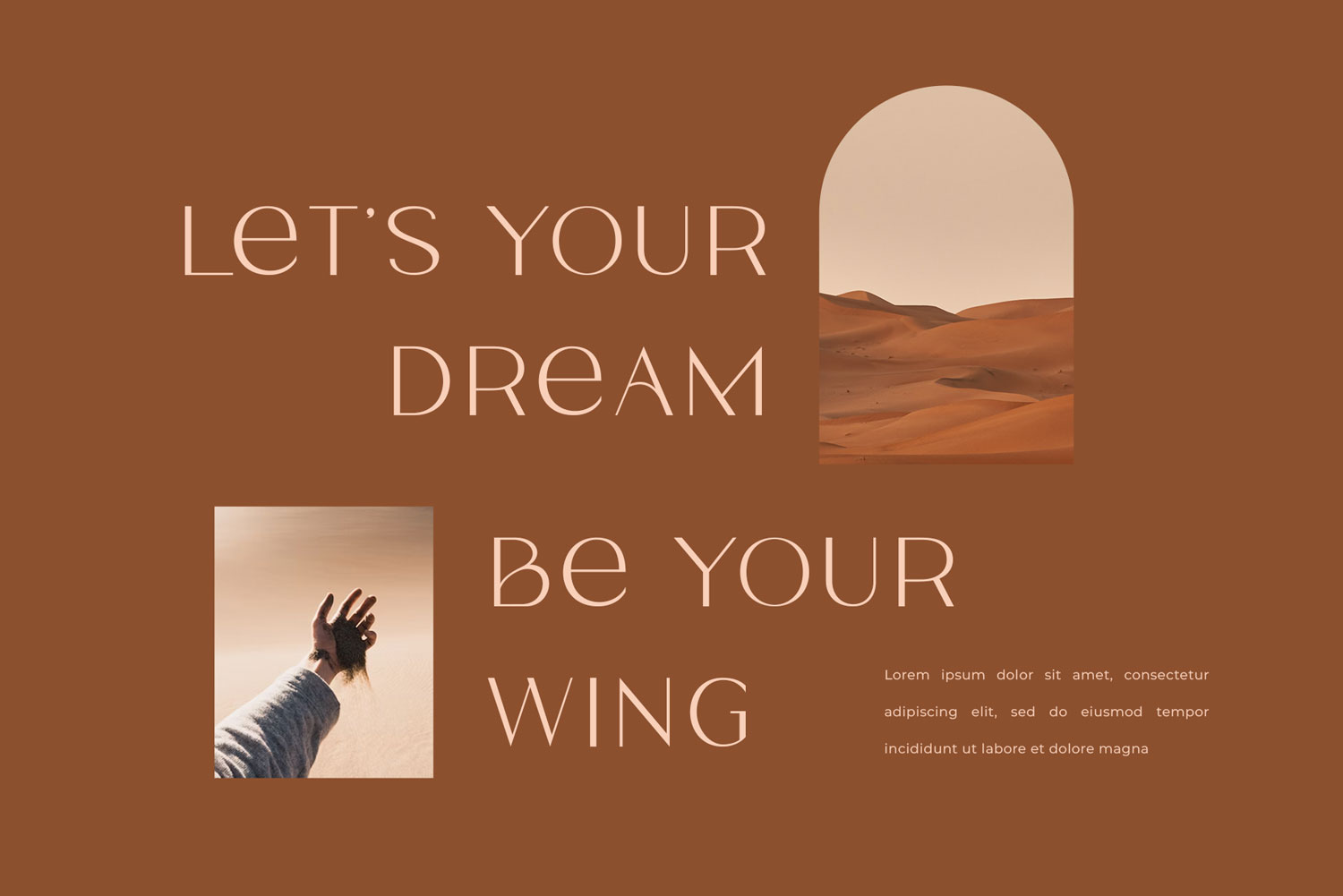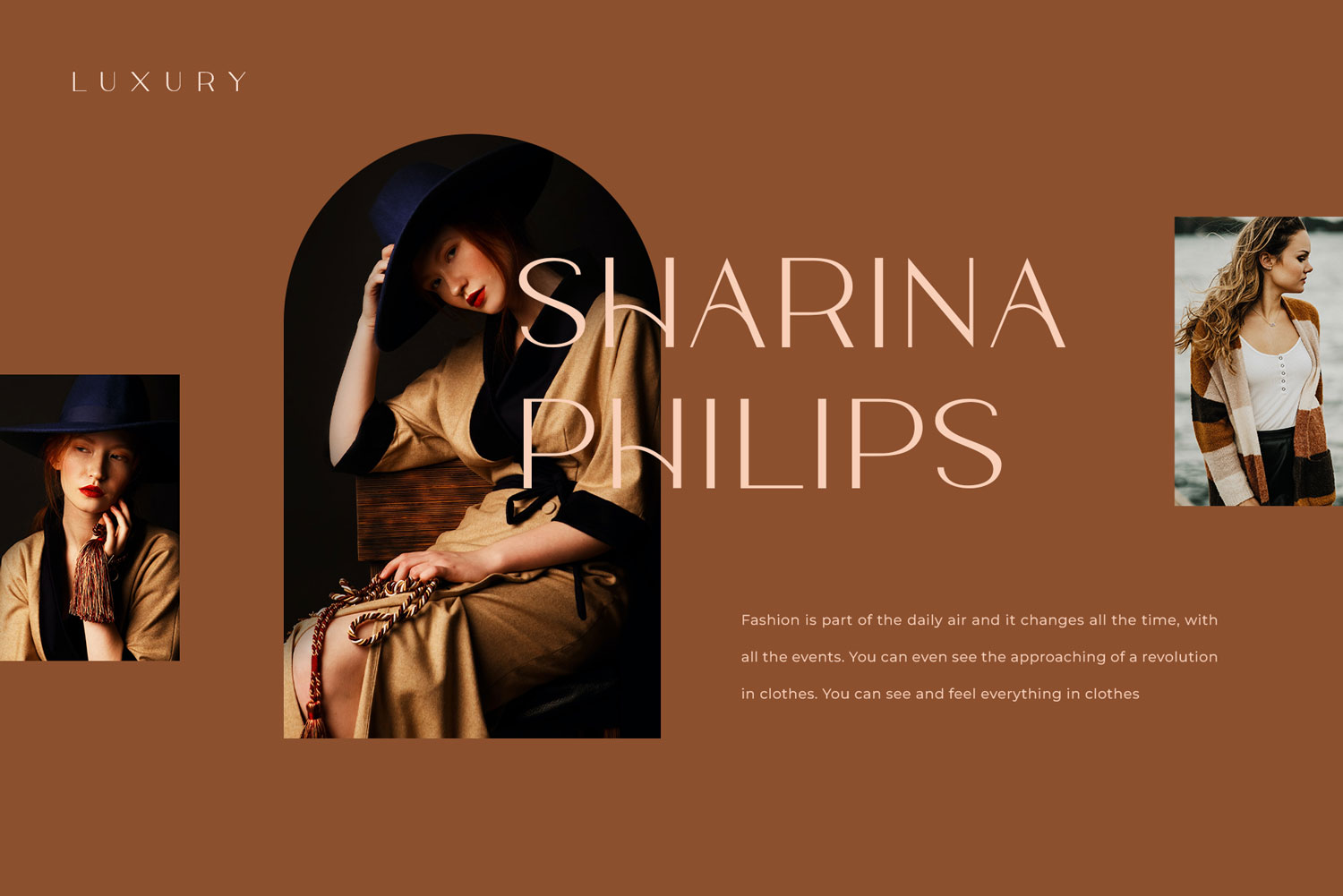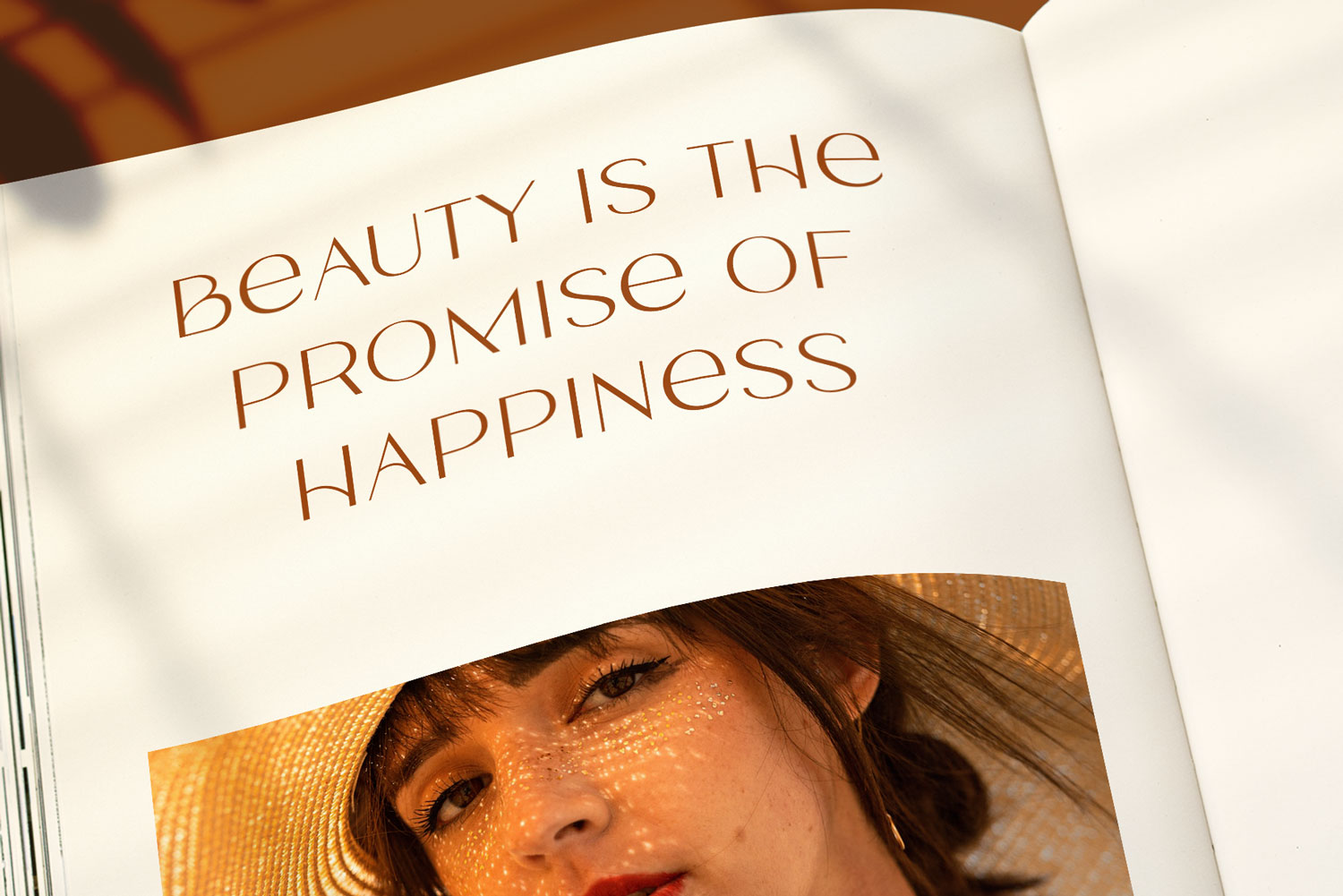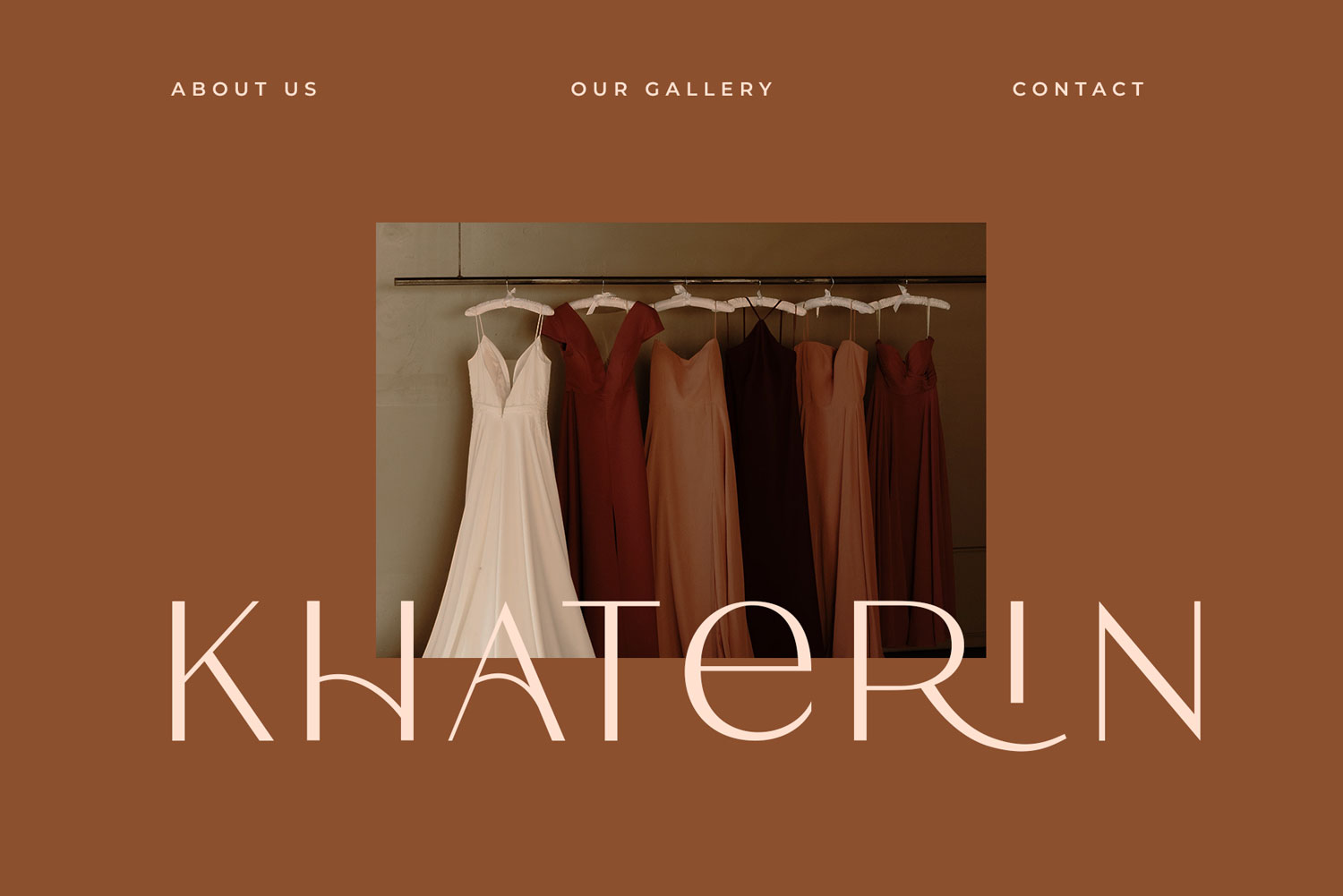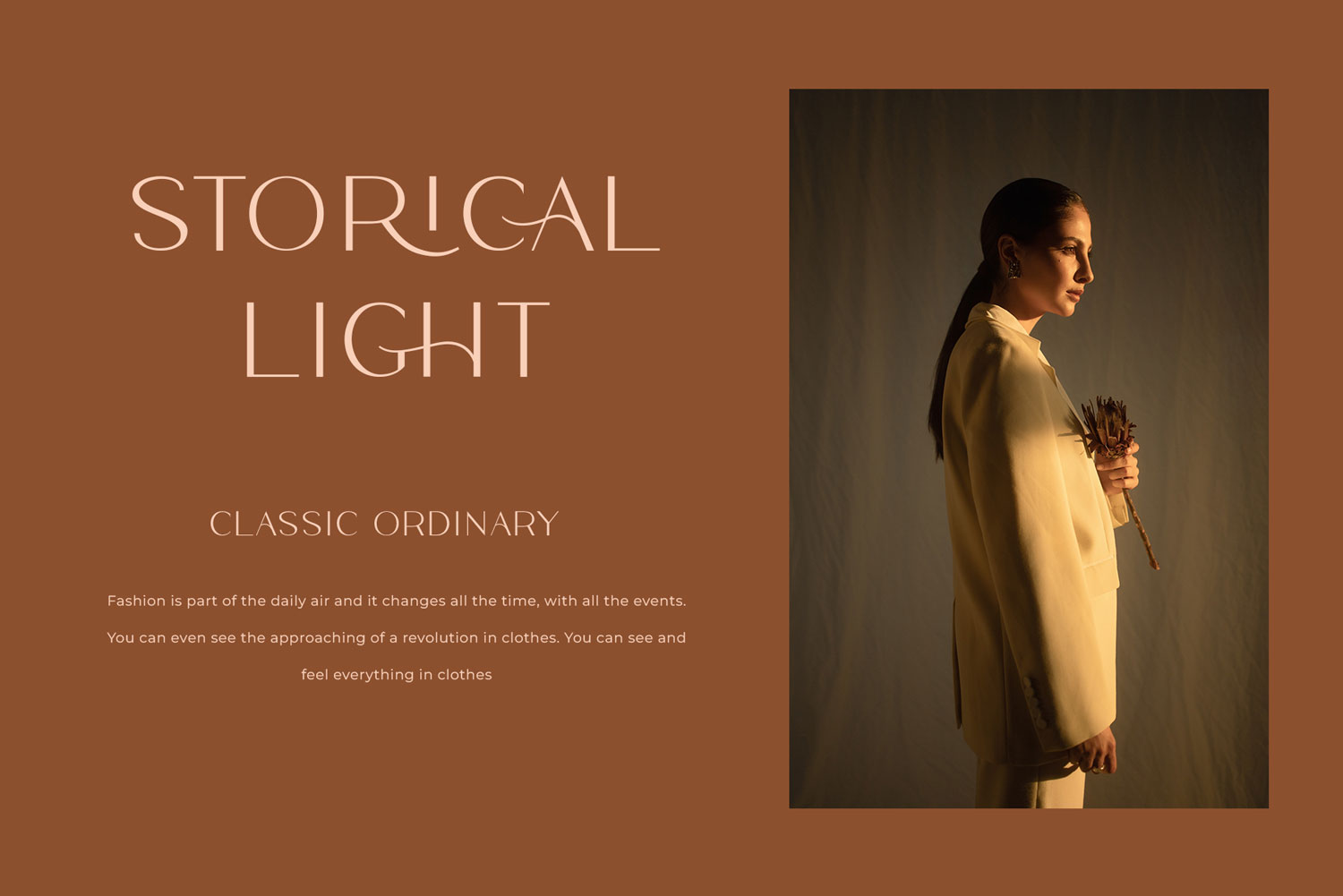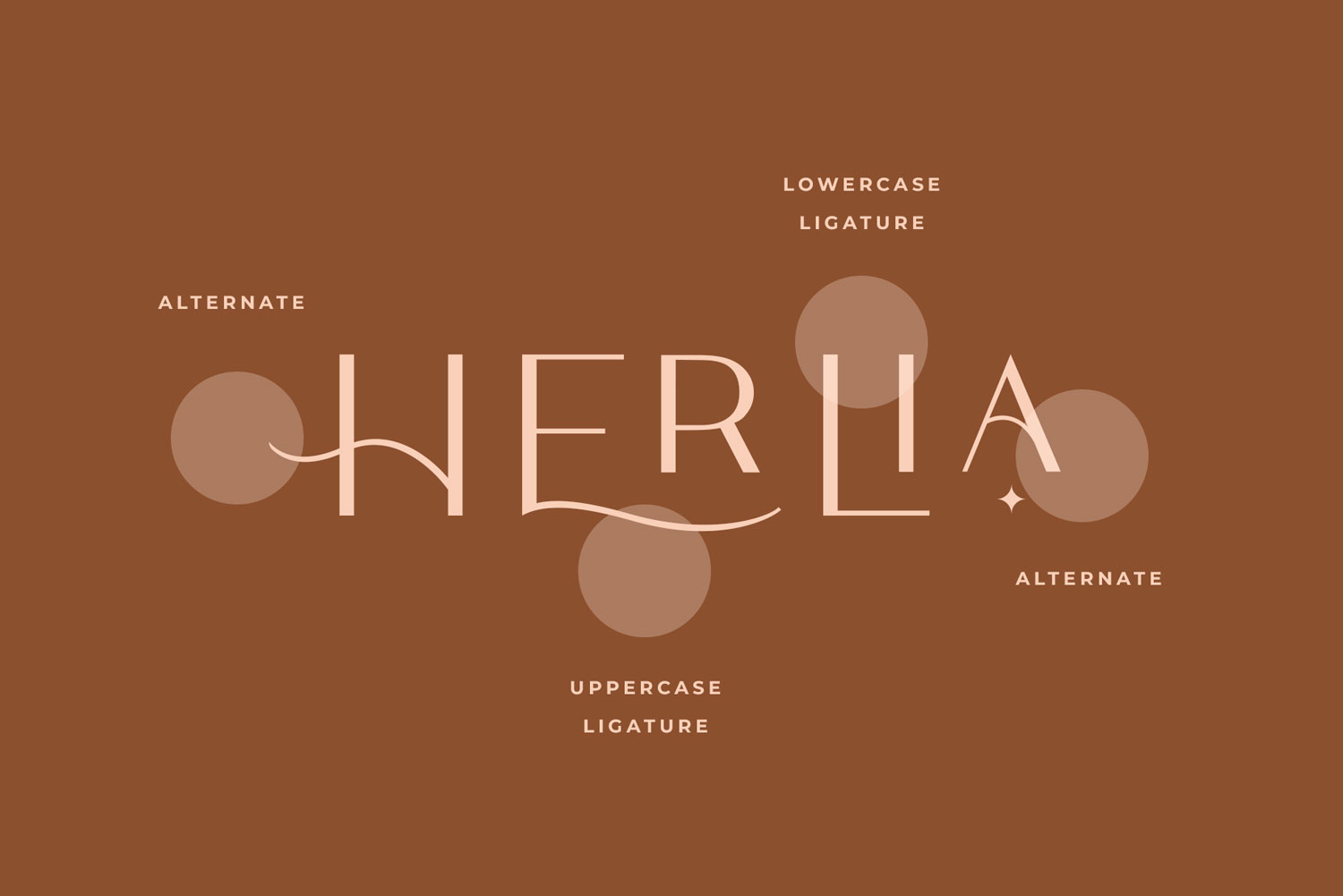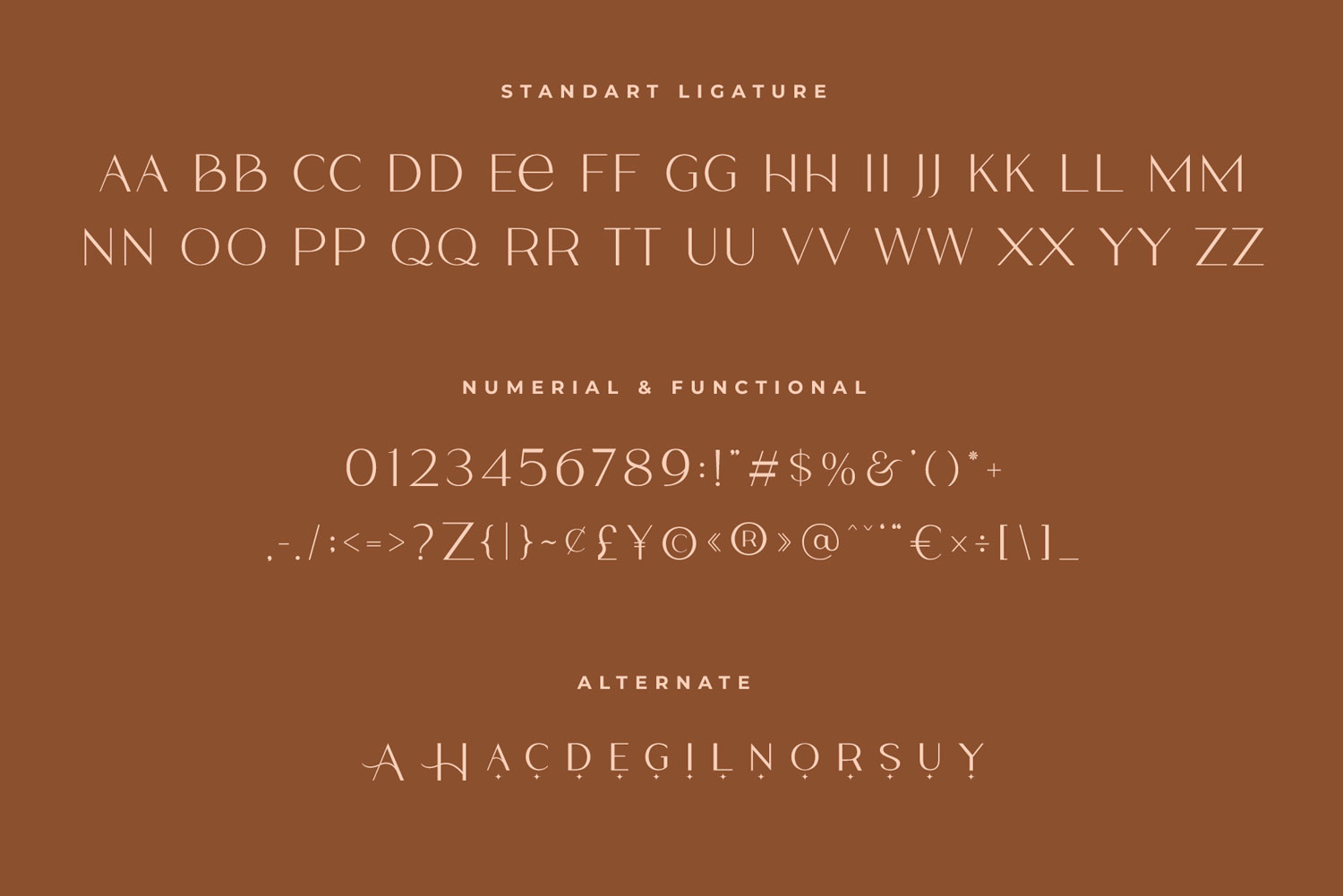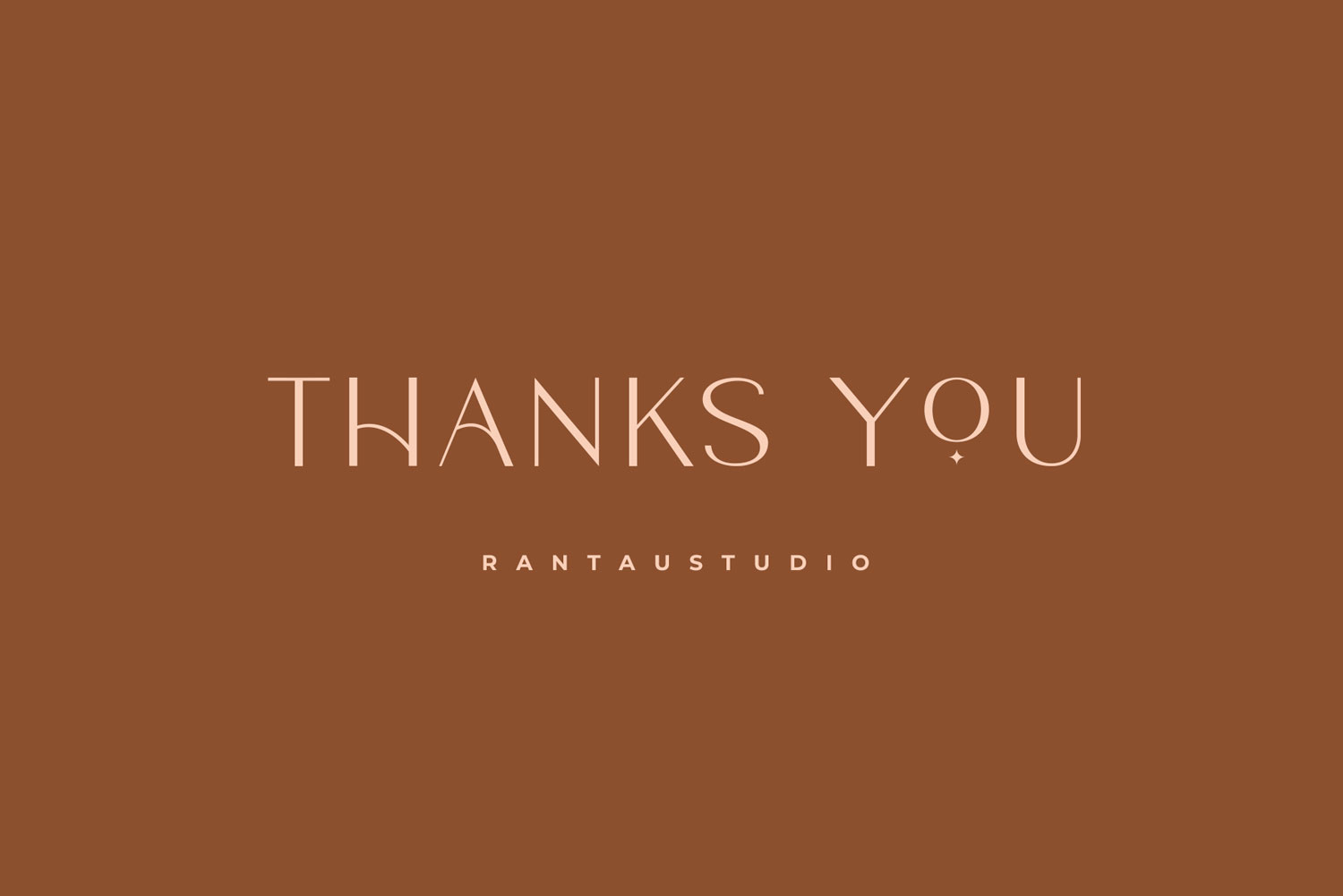
Hi Ladies and Gentleman ! Proudly present modern serif font “Lastri”, by rantautype. Lastri Sans is a Minimalist Modern Elegant font with beautiful ligatures, tons of special alternative glyphs and multilingual support. Lastri Sans is perfect for branding projects, Logo design, Clothing Branding, product packaging, magazine headers, or simply as a stylish text overlay to any background image. Features
Standar character A-Z and a-z
Numberial and Functional
Alternate
ligature
Multilinggual